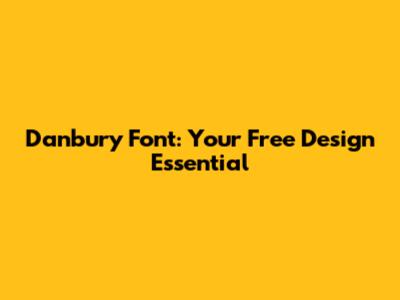
Danbury Font: Your Free Design Essential
Hey designers and fellow creatives! Today, we're diving deep into a font that’s been making waves for all the right reasons: the Danbury font. If you're on the hunt for a versatile, stylish, and, best of all, free typeface to elevate your next project, you've hit the jackpot. We'll explore what makes Danbury so special, where you can snag it, and how to best utilize its charm in your designs. Whether you're crafting a brand identity, designing a website, or just need that perfect headline font, Danbury is a contender you absolutely need to know about. Get ready to fall in love with this gem!
What is the Danbury Font and Why Should You Care?
So, what exactly is the Danbury font? At its core, it's a beautiful, sans-serif typeface that strikes a fantastic balance between modern elegance and approachable friendliness. It's not overly quirky, nor is it starkly minimalist; instead, it carves out its own niche with clean lines, well-proportioned letterforms, and a subtle hint of vintage character. This makes it incredibly adaptable. Think about it, guys – finding a font that looks professional enough for a corporate brochure but also warm and inviting for a personal blog post is a design unicorn. Danbury often fits that bill. Its readability is top-notch, which is crucial whether you're dealing with long blocks of text or snappy headlines. The characters are distinct, reducing ambiguity and ensuring your message comes across loud and clear.
But beyond its practical usability, Danbury boasts a certain je ne sais quoi. It has a subtle warmth that makes text feel more human and engaging. This is often achieved through slight variations in stroke width or the curvature of certain letters, which give it a handcrafted feel without sacrificing its clean, digital aesthetic. This subtle character makes it stand out from the sea of generic sans-serifs out there. It's the kind of font that doesn't shout for attention but rather confidently commands it through its sheer good looks and solid design. We’re talking about a font that can anchor your entire visual identity, providing a consistent and appealing typographic voice across all your communications. Imagine the possibilities – from sleek packaging designs to eye-catching social media graphics, Danbury is ready to perform.
Its versatility also extends to its character set. While specific weights and styles can vary depending on the exact version you download (more on that later!), a well-rounded Danbury font typically offers a good range of options. This might include regular, bold, italic, and perhaps even light or black weights. Having these variations allows for creating strong typographic hierarchies within your designs, differentiating headlines from body text, and adding emphasis where needed, all while maintaining a cohesive look. This depth in the font family is what separates a good free font from a truly great one that can be used professionally. It's not just about a single style; it's about a system of styles that work harmoniously together.
Furthermore, in the realm of free fonts, quality can be a gamble. Many free options are either poorly constructed, lack proper kerning, or have limited character sets. Danbury, however, is often praised for its high quality, which is a testament to its designer. This means you're not sacrificing professional standards for the sake of getting it for free. It’s a win-win situation for budget-conscious designers and businesses alike. So, why should you care about Danbury? Because it’s a high-quality, versatile, and aesthetically pleasing free font that can significantly enhance your design work without costing you a dime. It’s a smart addition to any designer’s toolkit, offering reliability and style in equal measure.